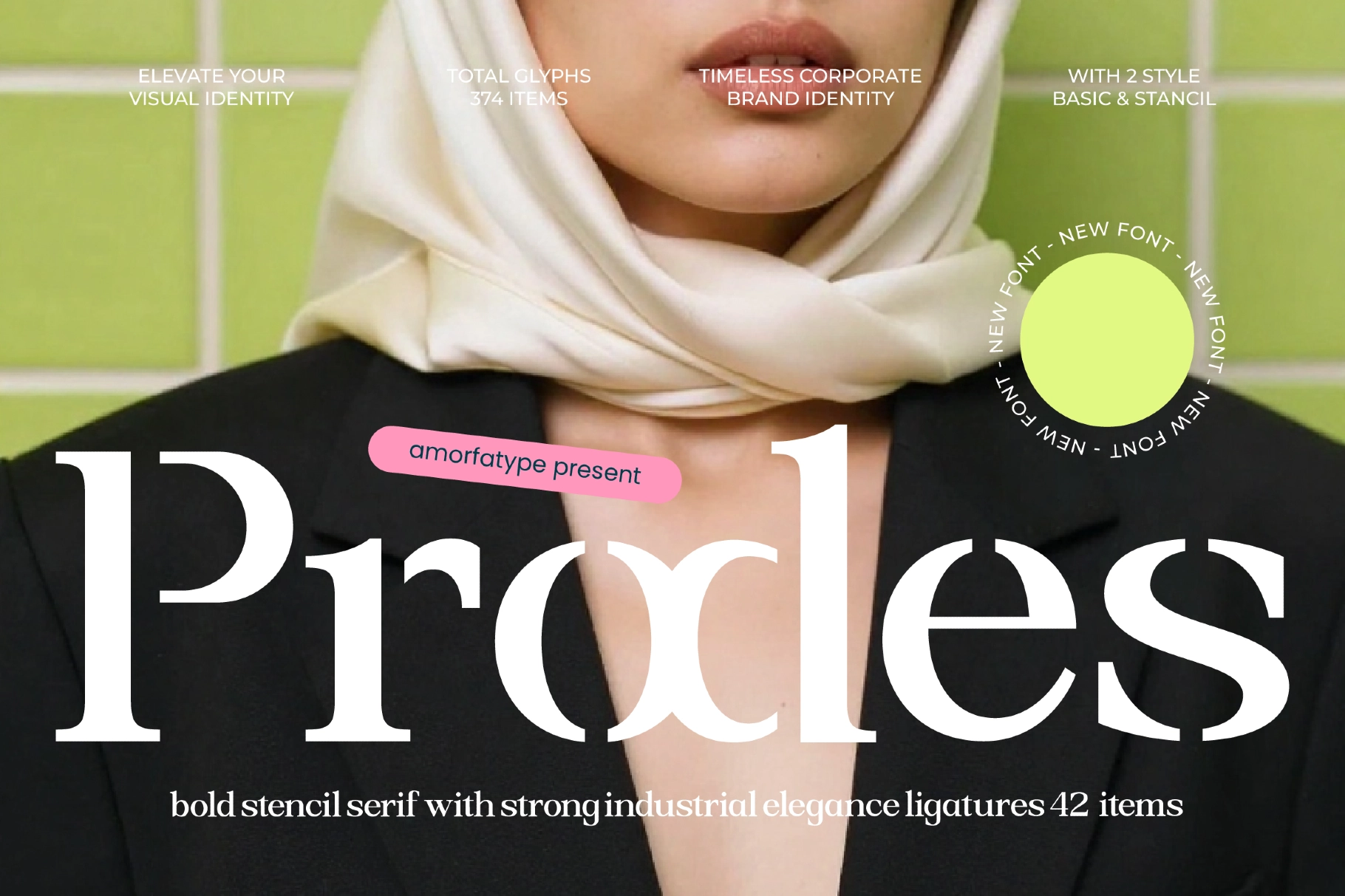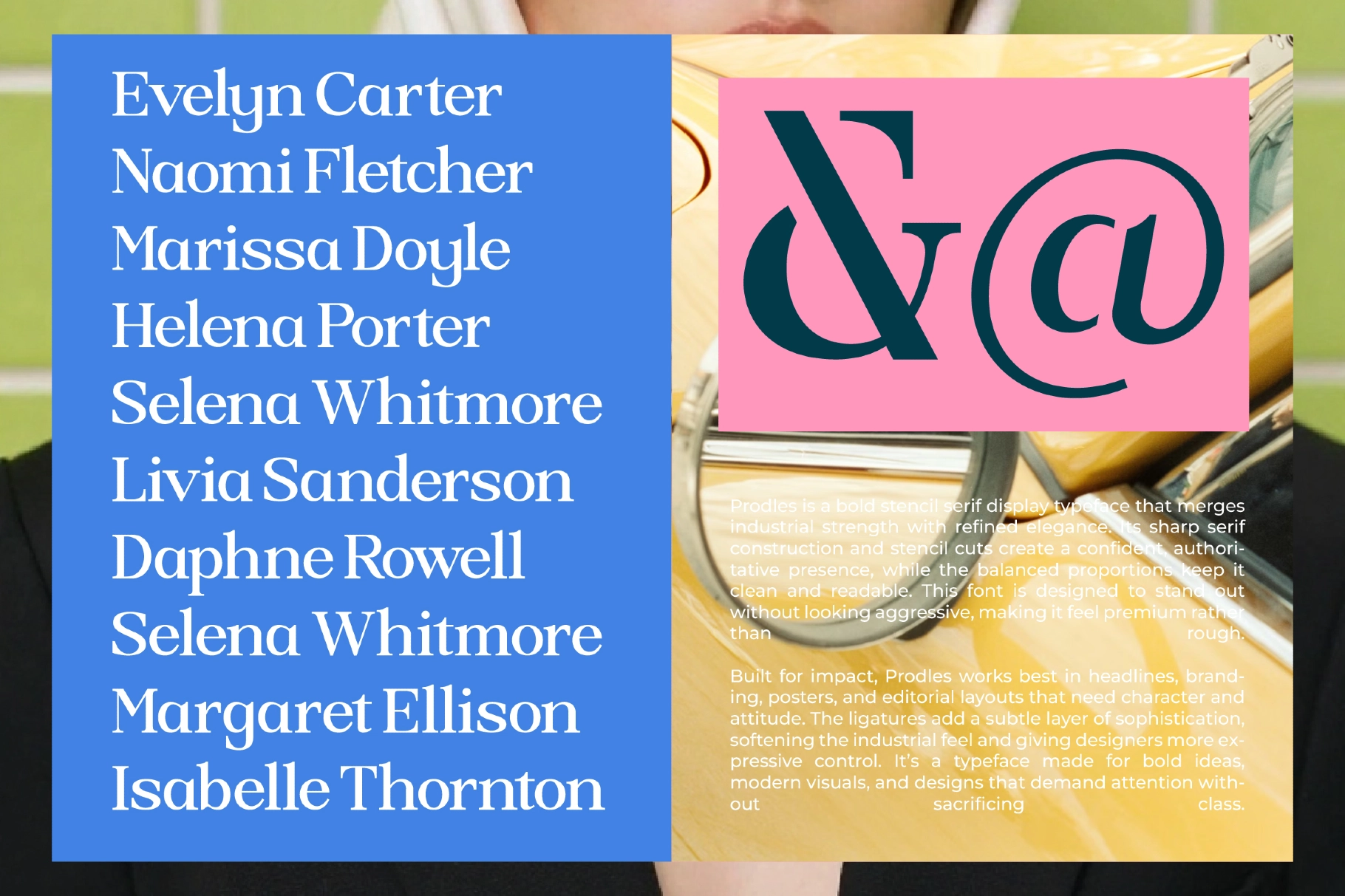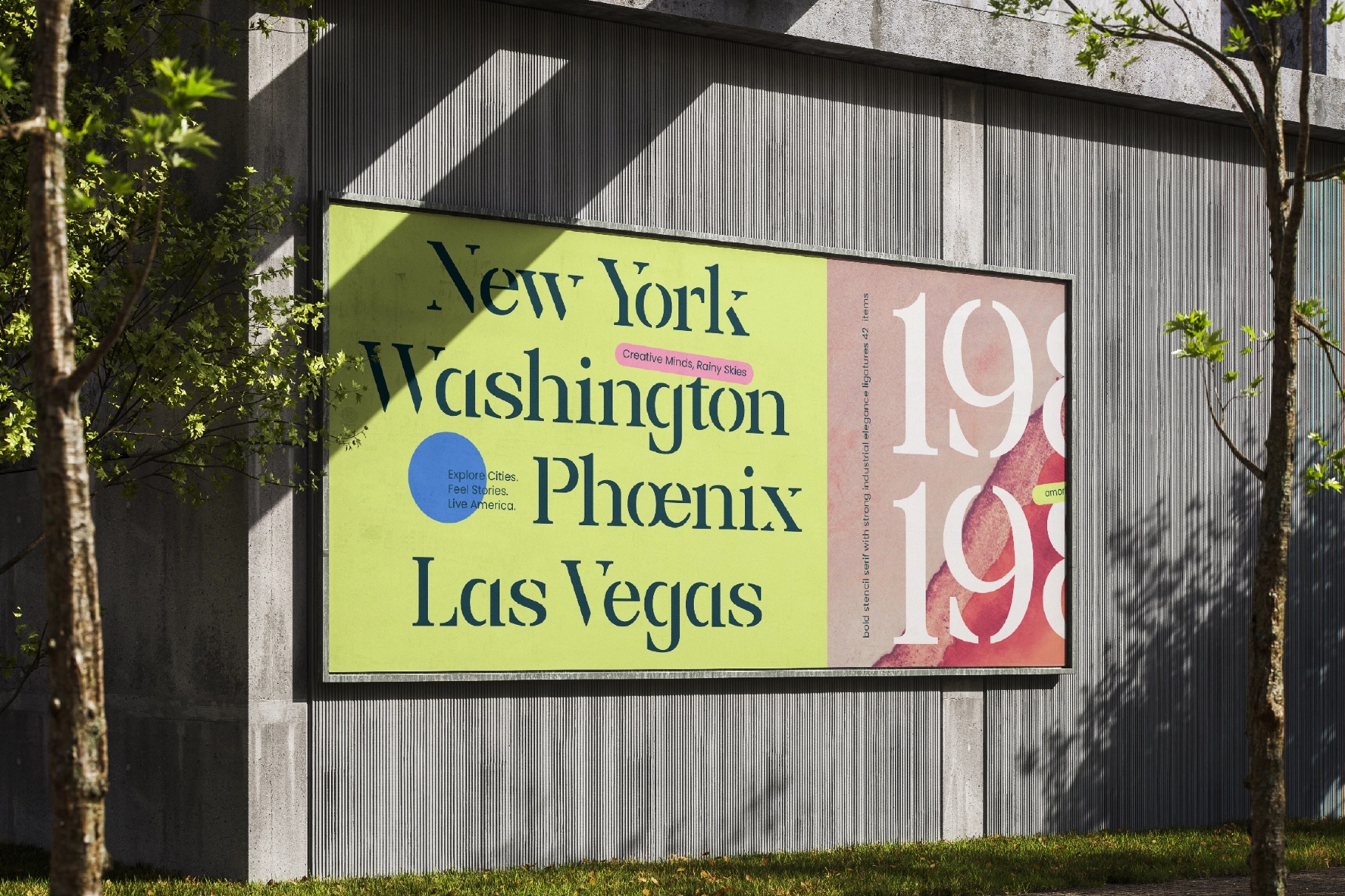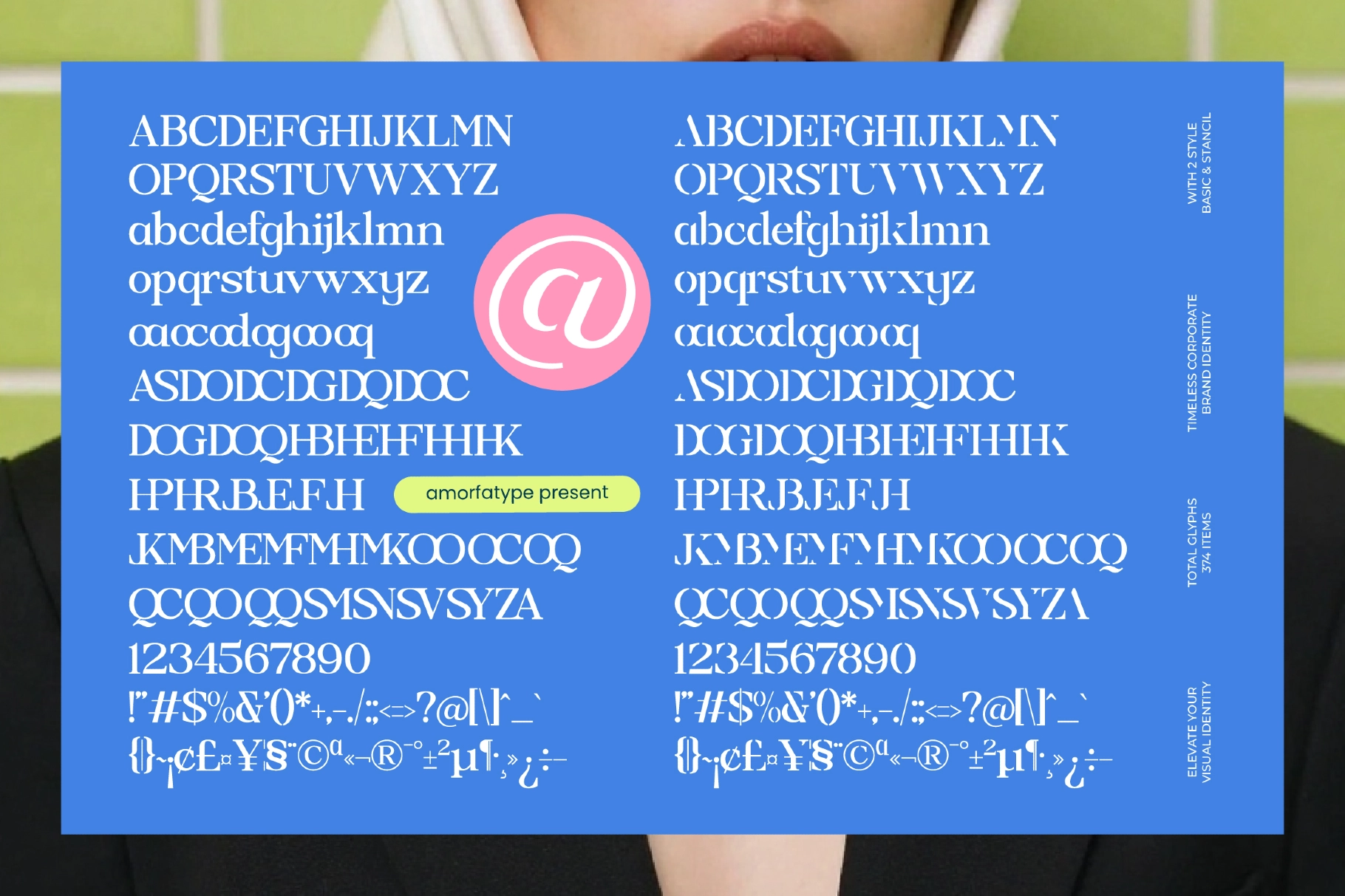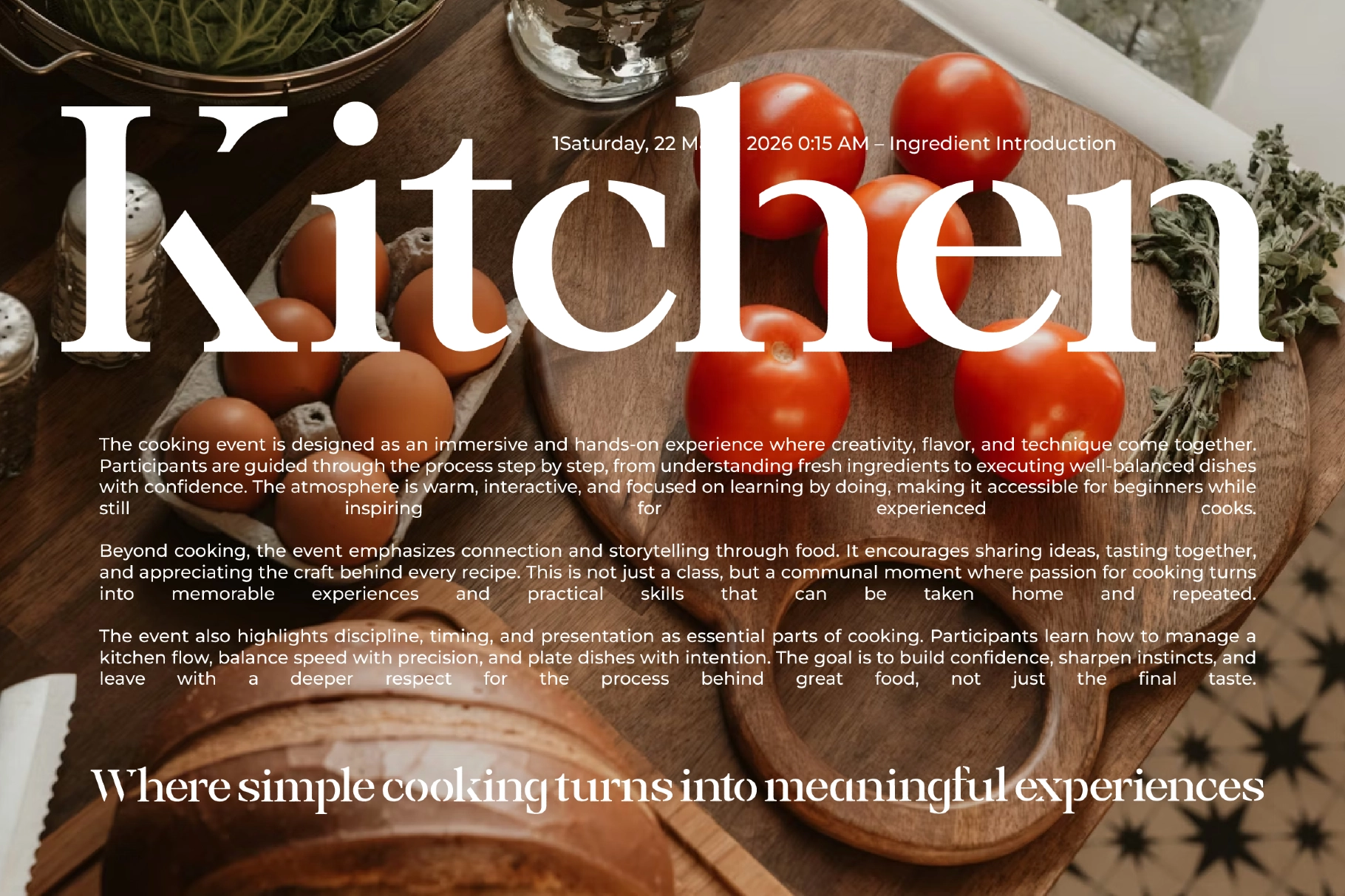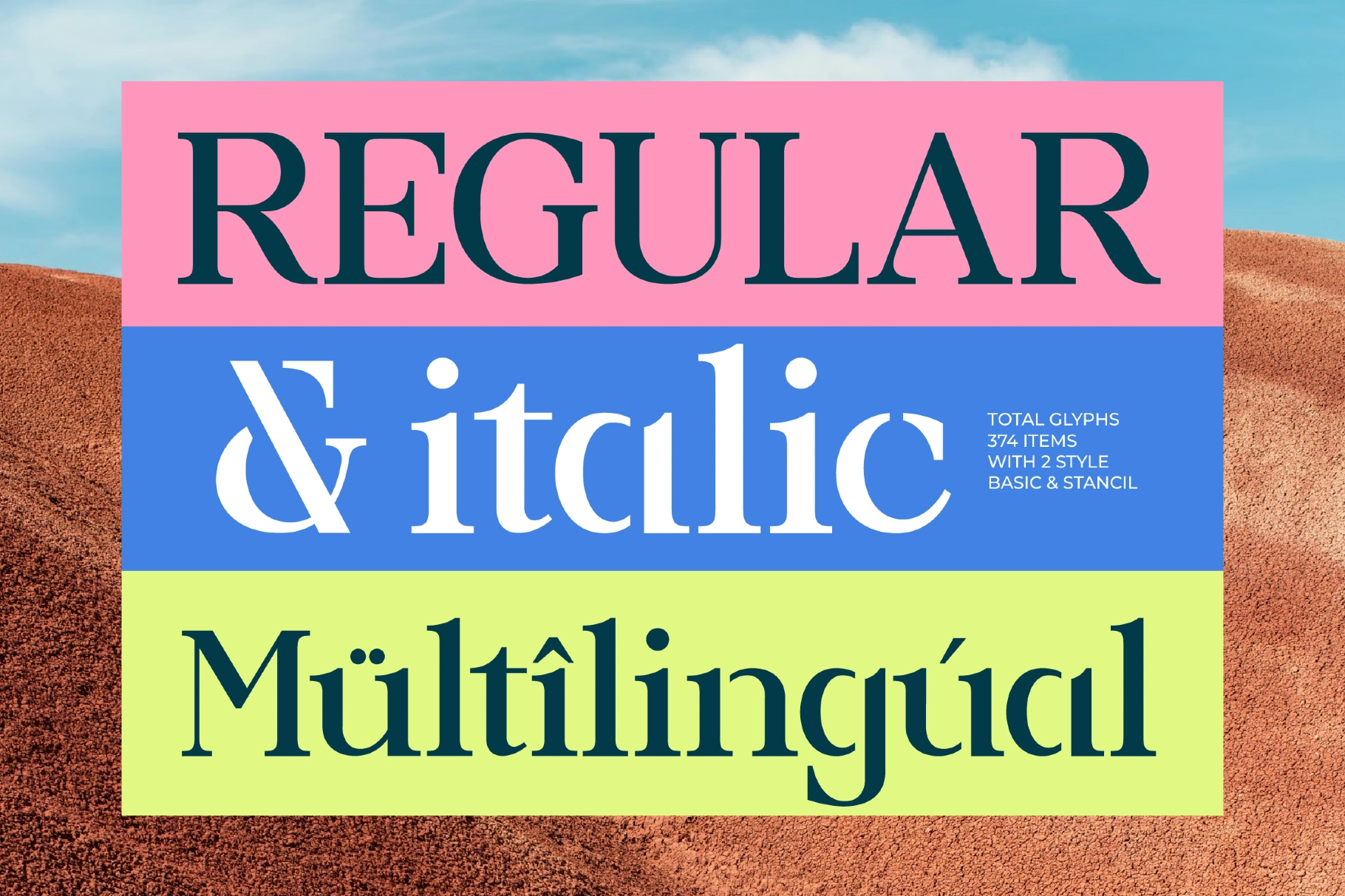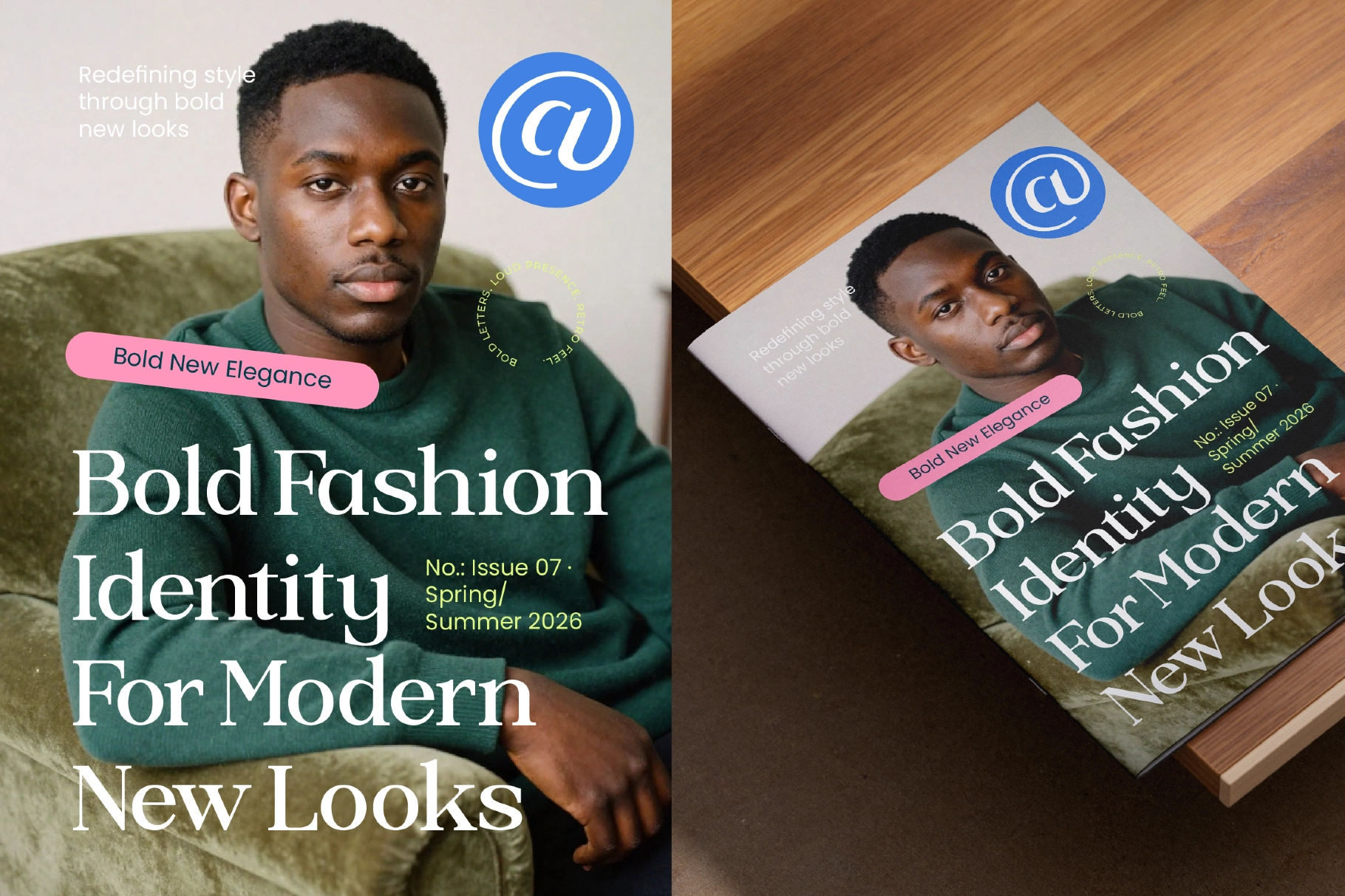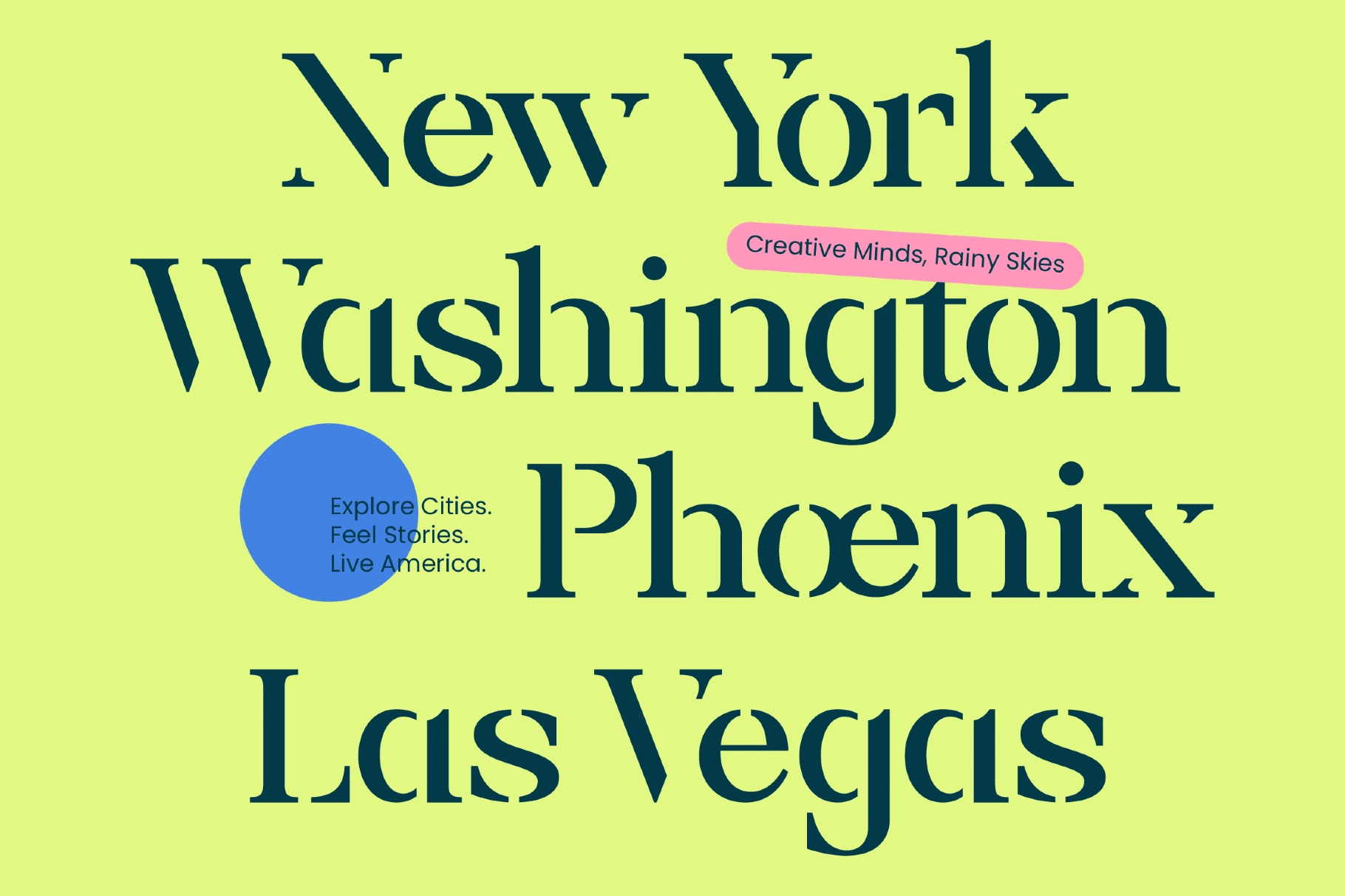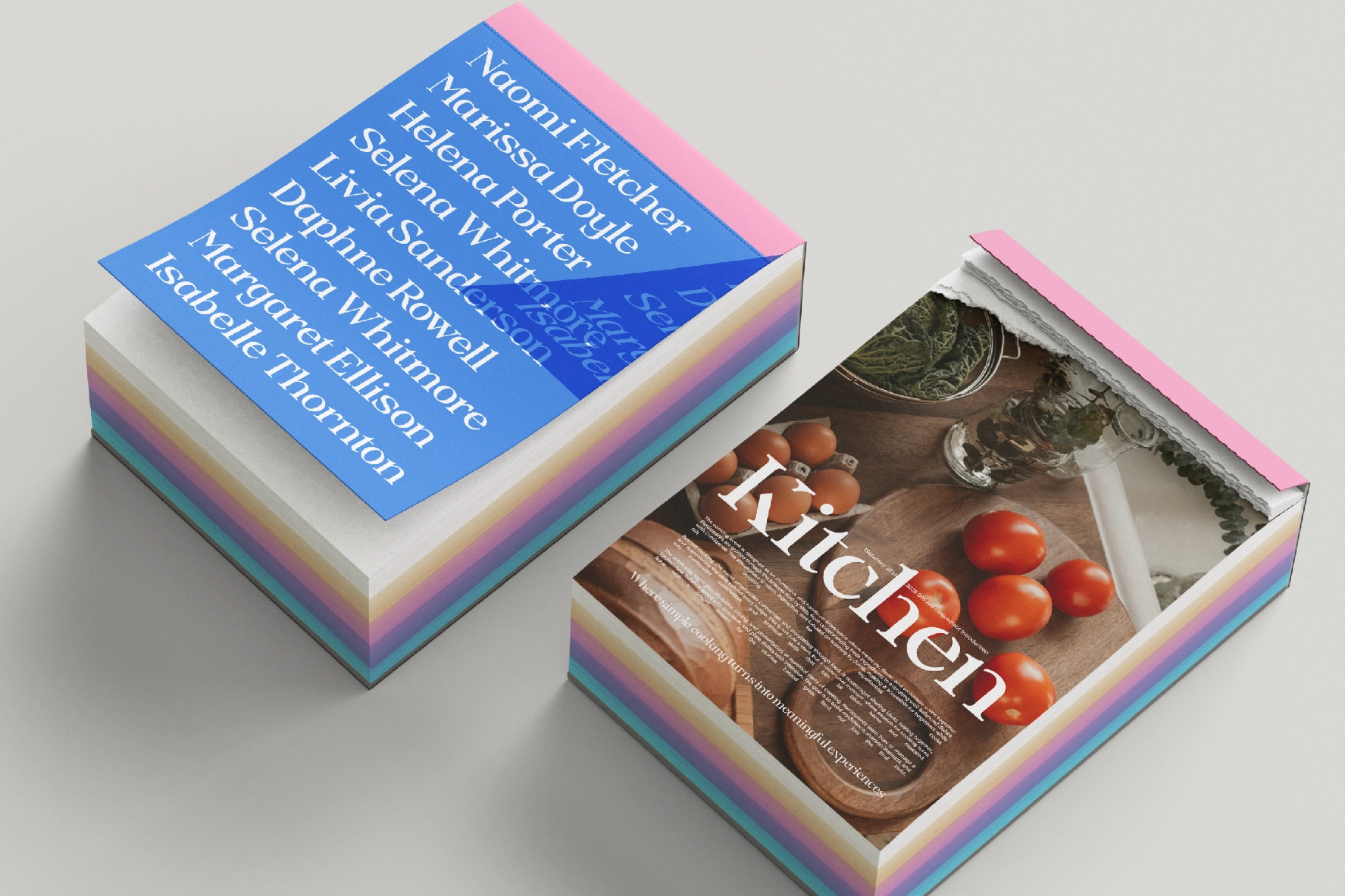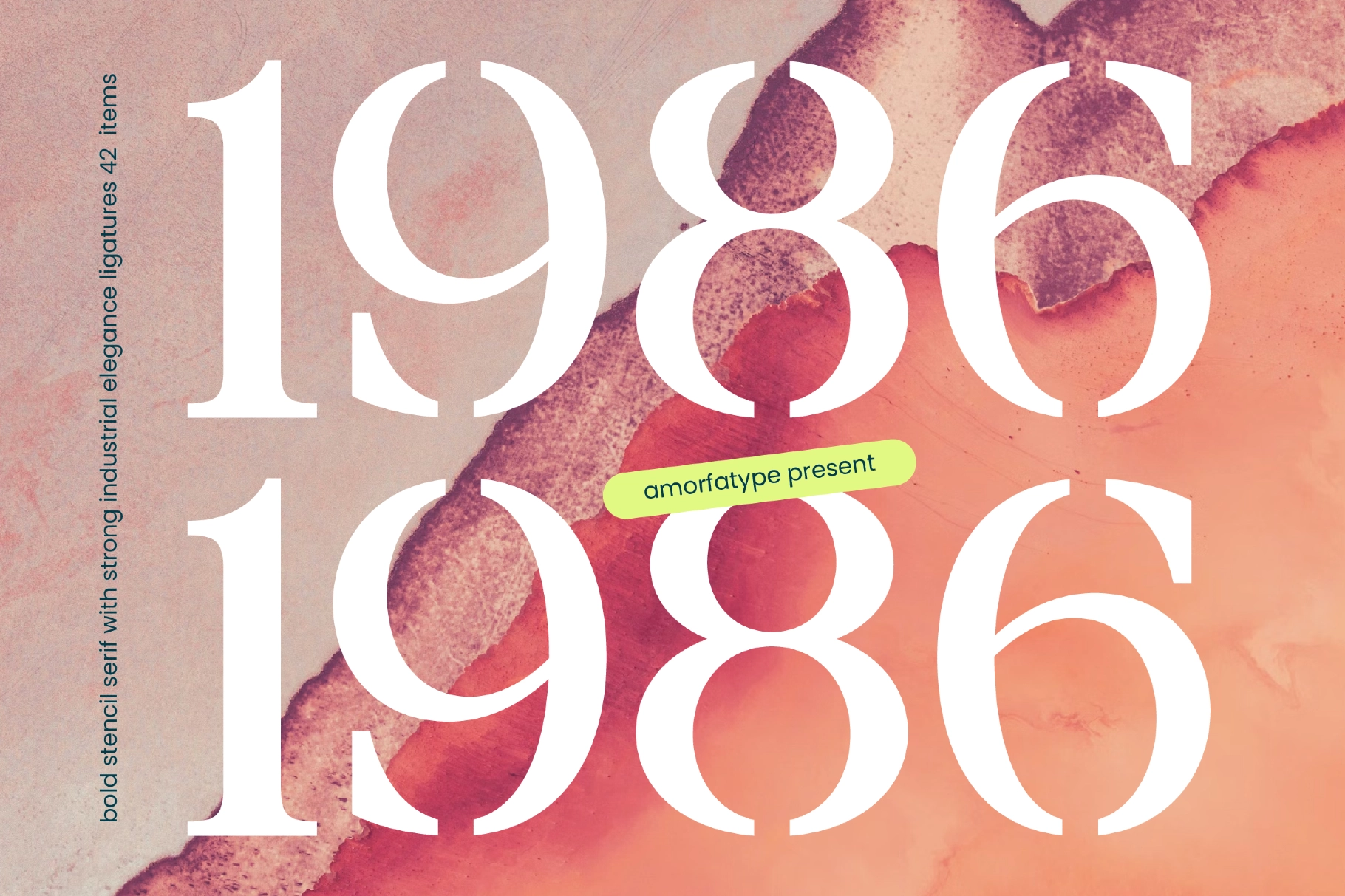
Prodes - Bold Stencil Serif Font
A stencil serif with sharp cuts, high contrast, and heavy letterforms made for display typography with authority. Its tailored curves and split strokes create a polished industrial look for headlines that need structure, scale, and a clean editorial edge.
Prodes works well for fashion branding, magazine covers, posters, signage, packaging, campaign graphics, lookbooks, website headers, logo marks, event identities, album artwork, apparel labels, social media visuals, and corporate identity systems with a strong typographic voice. The stencil style adds a precise architectural character, while the ligatures bring extra control for custom wordmarks and expressive headlines.
- 2 styles: Basic, Stencil
- 374 total glyphs
- 42 ligatures